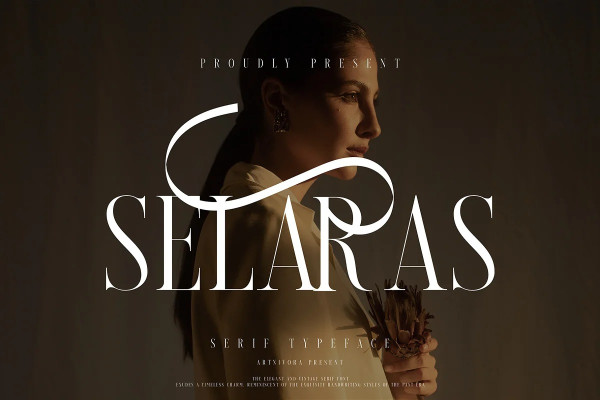
Selaras Font
Selaras Font, a simple and serif font. So perfect for you who needs a typeface for logo designs, magazine, social media, brochure, and many more.